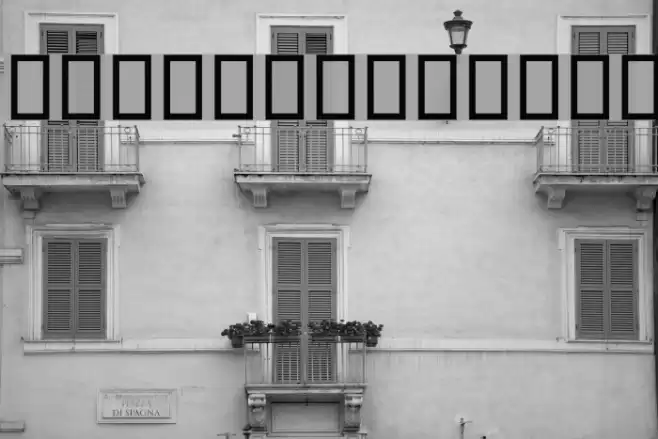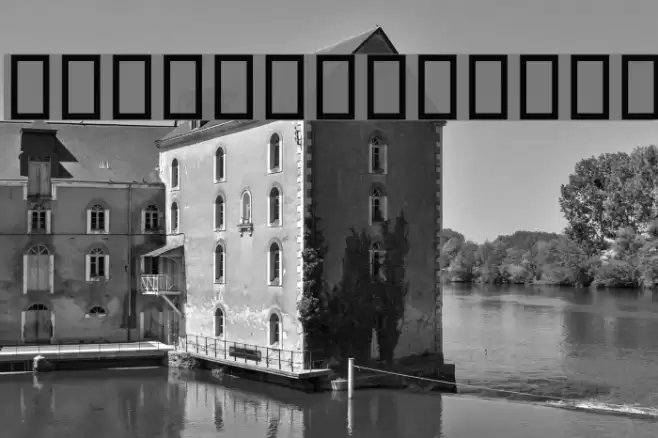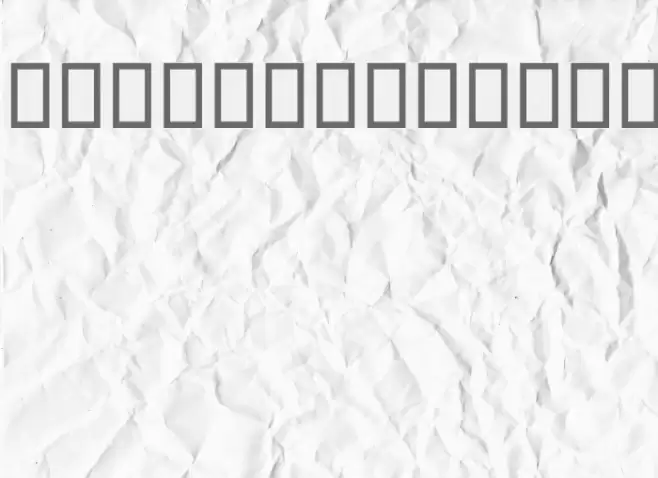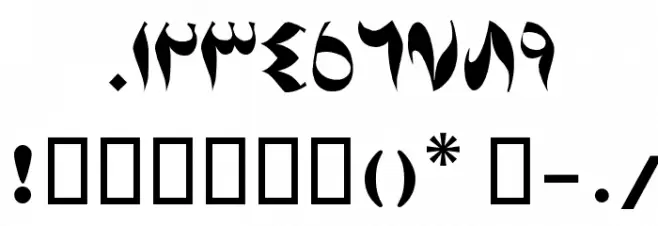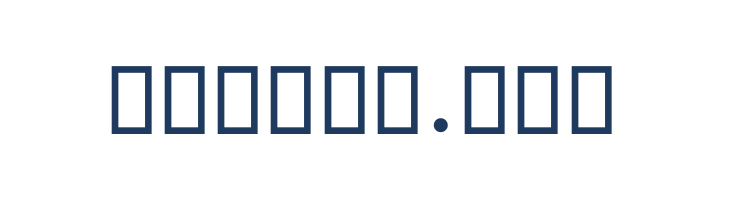
Honar Font
Honar Description
This font features a unique and artistic design with a strong emphasis on stylized curves and sharp edges. The characters are bold and have a distinct calligraphic influence, making them stand out with a dramatic flair. The numbers are particularly ornate, with each digit showcasing intricate details that add to the overall aesthetic. The special characters maintain the same artistic style, ensuring consistency across the font. This font is ideal for projects that require a touch of elegance and creativity, offering a striking visual impact.
An artistic and bold font with calligraphic influences and intricate details from Uncategorized fonts.
- Proposed Projects: Ideal for creative projects such as logos, posters, and artistic invitations.
- Use Case: Logos, Posters, Artistic Invitations